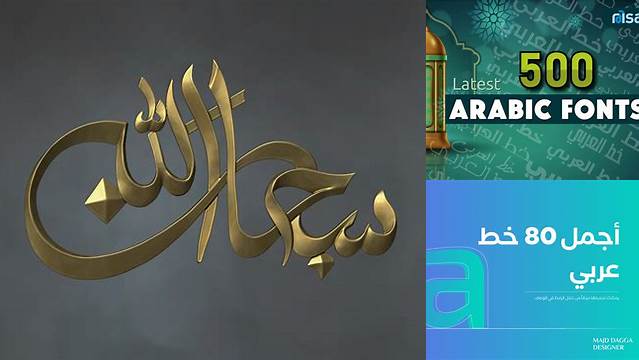
Download Free 3D Arabic Fonts: A Designer's Guide
Introduction to 3D Arabic Fonts
Hey guys! Are you looking to add a unique and eye-catching flair to your designs? 3D Arabic fonts are a fantastic way to do just that! In today's digital world, typography plays a crucial role in visual communication. When it comes to Arabic script, the beauty and complexity of its calligraphy can be further enhanced by 3D effects. These fonts bring depth and dimension to your text, making it stand out and grab attention. But before we dive into the best places to find these awesome fonts, let's understand why they are so popular and how they can elevate your projects. Think about it – a simple word or phrase can transform into a captivating visual element with the right 3D Arabic font. Whether you're working on a logo, a poster, a website, or any other design project, using a 3D font can make a significant impact. It adds a touch of sophistication and modernity while still honoring the rich tradition of Arabic calligraphy. So, if you're ready to take your designs to the next level, you're in the right place! We're going to explore everything you need to know about 3D Arabic fonts and where to find them for free. Let’s get started and discover the magic of 3D Arabic typography!
Why Use 3D Arabic Fonts?
Okay, so you might be wondering, why should I even bother with 3D Arabic fonts? Well, there are tons of reasons! First off, they make your text incredibly visually appealing. Imagine the fluid, elegant curves of Arabic script popping off the page (or screen!) with depth and dimension. It’s a total game-changer. Think about the impact you can create with a stunning 3D Arabic font on a poster, a website header, or even a social media graphic. It instantly adds a professional and polished look, making your designs stand out from the crowd. Plus, using 3D fonts can help you convey a sense of creativity and innovation. It shows that you’re willing to go the extra mile to make your work unique and memorable. In a world where everyone is bombarded with information, having that visual edge is crucial. 3D Arabic fonts aren't just about aesthetics, though. They can also enhance readability in certain contexts. The added depth can help the eye distinguish the intricate details of the Arabic script, especially in larger sizes. This is particularly useful for headlines, titles, and other prominent text elements. Moreover, using 3D Arabic fonts allows you to tap into the rich cultural heritage of the Arabic language and calligraphy. It's a way to celebrate and showcase this beautiful art form in a modern and dynamic way. Whether you're designing for a cultural event, a religious celebration, or simply want to add an exotic touch to your project, 3D Arabic fonts can be a perfect choice. So, if you're looking to make a statement, grab attention, and add a touch of elegance to your designs, 3D Arabic fonts are definitely worth exploring!
Tips for Using 3D Arabic Fonts
Okay, so you've found some awesome 3D Arabic fonts – that's fantastic! But now, how do you actually use them effectively in your designs? It's not just about slapping a 3D font on your project and calling it a day. To truly make the most of these fonts, there are a few tips and tricks you should keep in mind. First and foremost, consider the context of your design. 3D fonts can be incredibly eye-catching, but they're not always the best choice for every situation. For example, a highly ornate 3D font might be perfect for a poster or a logo, but it could be overwhelming in a large block of body text. Think about the overall tone and message you're trying to convey. A bold, geometric 3D font might be ideal for a modern, edgy design, while a more elegant, calligraphic 3D font could be better suited for a traditional or sophisticated project. Another important factor to consider is readability. While 3D fonts can add visual interest, they can also make text harder to read if used improperly. Avoid using overly complex or distorted 3D effects, especially in smaller sizes. Make sure the letters are still clear and distinguishable. Pay attention to the spacing between letters and lines. Tight spacing can make 3D text look cluttered and difficult to read, while too much spacing can make it feel disconnected. Experiment with different spacing options until you find a balance that looks good and is easy on the eyes. Don't be afraid to play around with colors and shadows. These elements can dramatically impact the look and feel of your 3D text. Experiment with different color combinations to create contrast and highlight the 3D effect. Shadows can add depth and realism, but they can also make the text look muddy if not used carefully. And guys, remember the power of layering! Combining different fonts and effects can create a really dynamic and visually appealing design. Try pairing a 3D Arabic font with a simpler sans-serif font for a modern, balanced look. You can also layer multiple 3D fonts to create depth and dimension. By following these tips, you'll be able to use 3D Arabic fonts like a pro and create stunning designs that truly stand out!
Software and Tools for Working with 3D Fonts
So, you're all set to use 3D Arabic fonts in your projects, but what tools do you need to actually make it happen? Don't worry, you don't need to be a tech wizard to work with 3D typography. There are plenty of user-friendly software options available that can help you bring your creative vision to life. One of the most popular choices for graphic design is Adobe Photoshop. Photoshop offers a wide range of tools and features for creating and manipulating 3D text. You can easily import your 3D Arabic fonts, add effects like shadows and textures, and adjust the lighting to achieve the perfect look. While Photoshop is a powerful tool, it can be a bit overwhelming for beginners. If you're looking for something a little more streamlined, Adobe Illustrator is another great option. Illustrator is a vector-based design program, which means it's ideal for creating crisp, clean 3D text that can be scaled without losing quality. Plus, Illustrator has excellent typography tools that make it easy to work with complex scripts like Arabic. If you're on a budget, there are also some fantastic free alternatives to Photoshop and Illustrator. GIMP is a free and open-source image editor that offers many of the same features as Photoshop. It might take a little getting used to, but it's a powerful tool for creating 3D text effects. Inkscape is another free and open-source option that's similar to Illustrator. It's a vector-based design program that's perfect for creating scalable 3D graphics. For creating 3D text specifically, you might want to explore specialized software like Blender or Cinema 4D. These programs are more complex, but they offer advanced 3D modeling and rendering capabilities. If you're serious about 3D design, they're definitely worth checking out. No matter which software you choose, the key is to experiment and have fun! Play around with different tools and techniques to discover what works best for you. With a little practice, you'll be creating stunning 3D Arabic typography in no time!
Conclusion: Unleash Your Creativity with 3D Arabic Fonts
Alright guys, we've reached the end of our journey into the world of 3D Arabic fonts! I hope you've learned a lot and are feeling inspired to start using these amazing fonts in your own designs. Remember, 3D Arabic fonts are a fantastic way to add visual interest, sophistication, and a touch of cultural flair to your projects. Whether you're designing a logo, a poster, a website, or anything else, these fonts can help you make a statement and grab attention. We've explored why 3D Arabic fonts are so effective, where to find them for free, and how to use them effectively. We've also discussed the software and tools you'll need to bring your 3D typography ideas to life. Now it's time to put your knowledge into practice and start experimenting! Don't be afraid to try new things, play around with different fonts and effects, and see what you can create. The possibilities are endless! And most importantly, have fun with it. Design should be an enjoyable process, and working with 3D Arabic fonts can be incredibly rewarding. So go ahead, unleash your creativity and let your imagination run wild. With the right 3D Arabic font, you can transform ordinary text into extraordinary visual masterpieces. Thanks for joining me on this adventure, and happy designing!